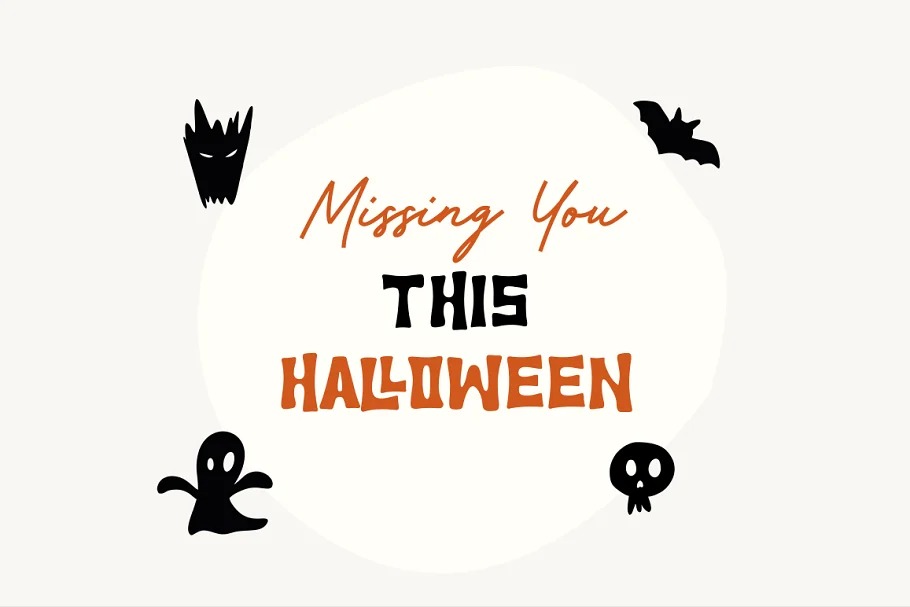
Witches Friend Font Duo
This is a beautiful, casual font duo adds a custom and organic feel to any design in seconds! It’s designed and shared by Sronstudio. A combination of bold distinct display font and lovely monoline font with bonus 50 Halloween doodles, perfect for product packaging, product designs, label, photography, watermark, flyer, greeting card, special events, or anything.
Witches Friend comes with uppercase and lowercase letters, multilingual symbols, numerals, punctuation.